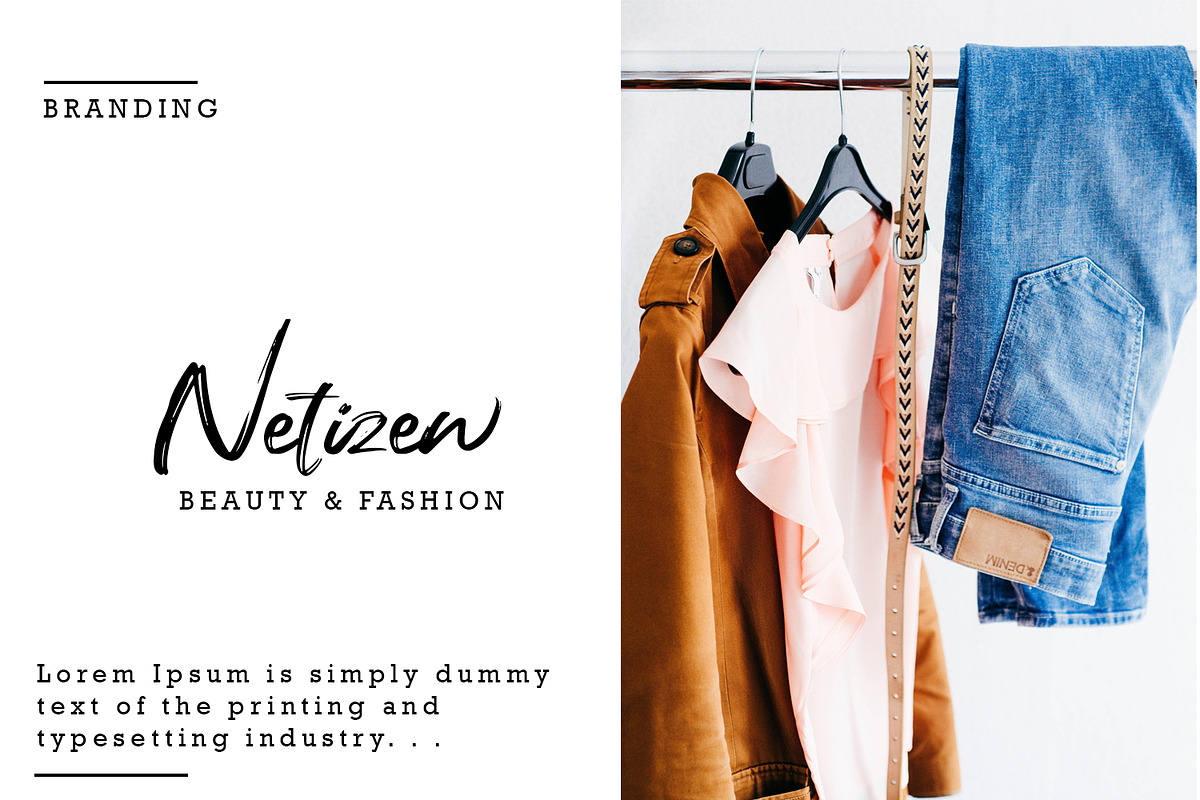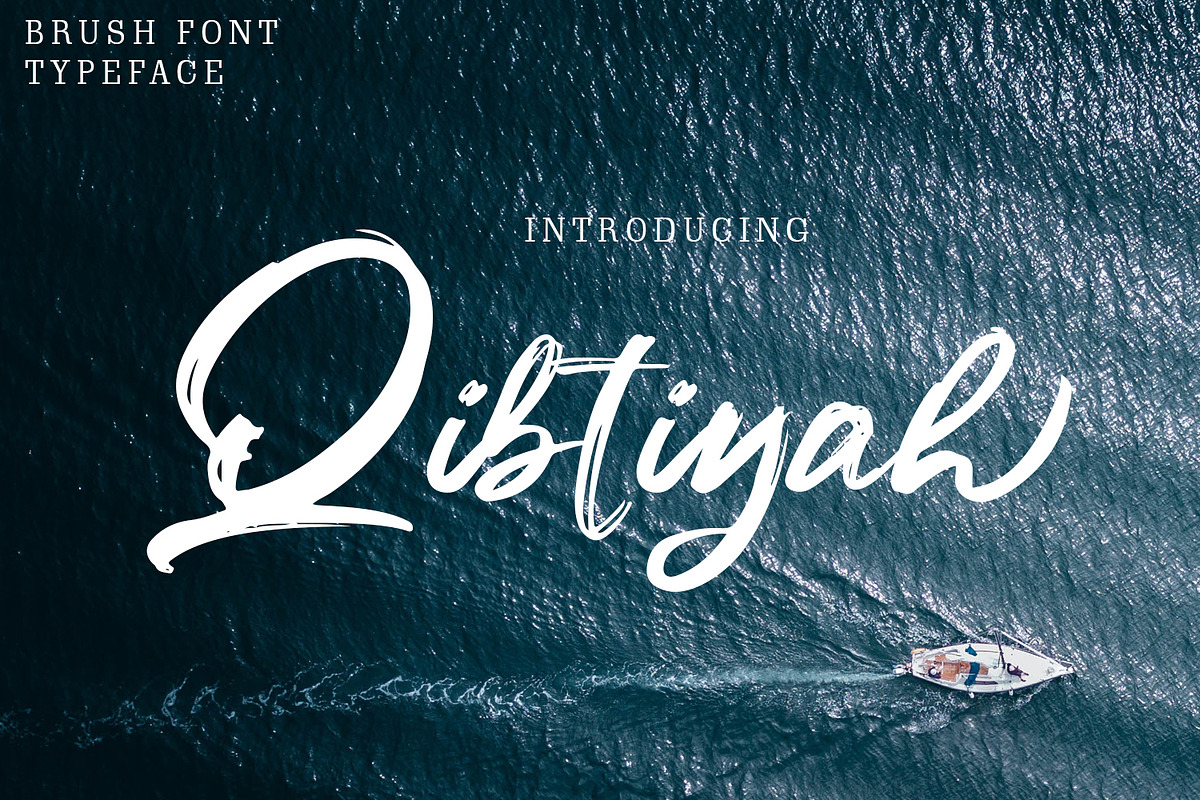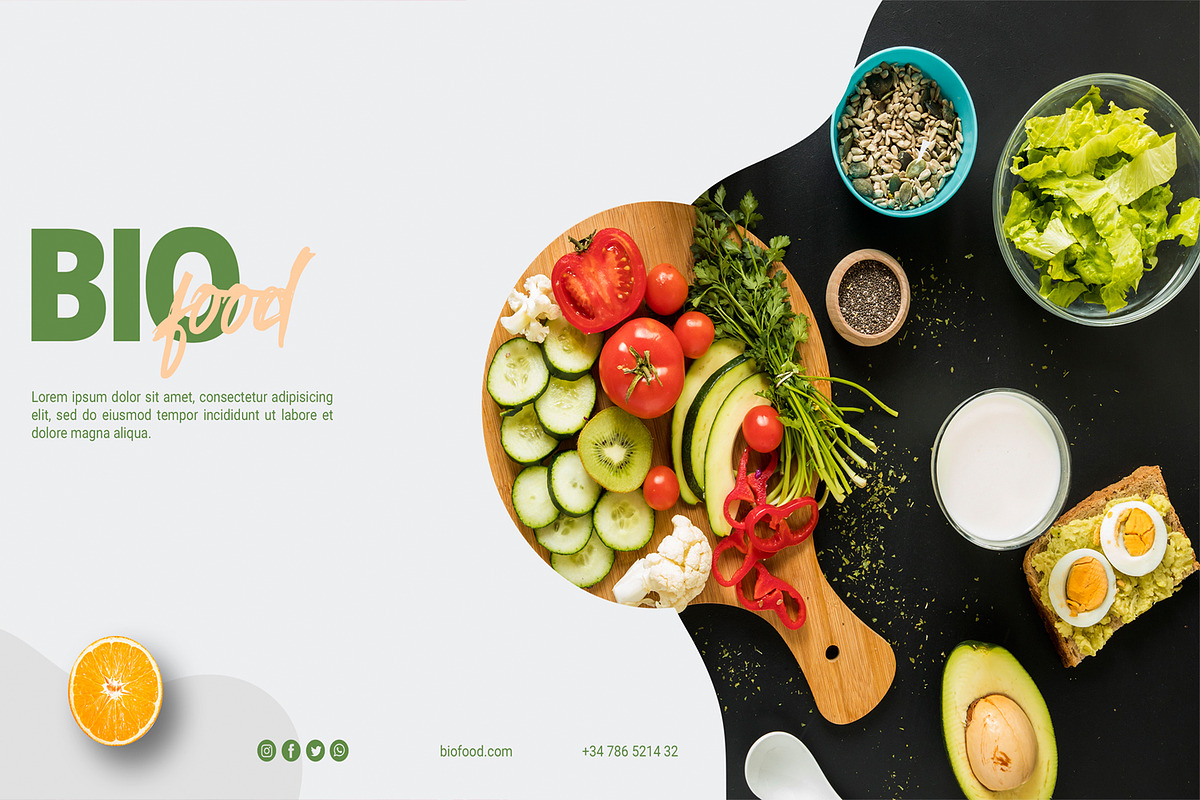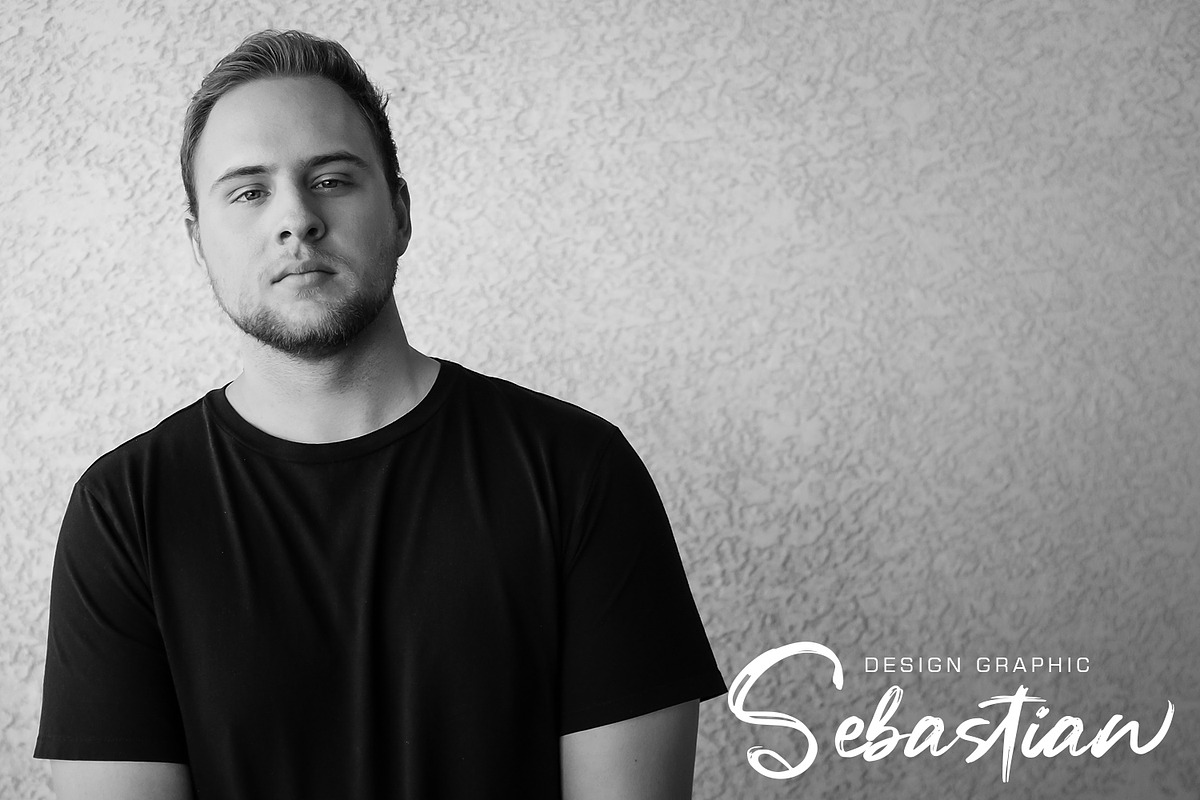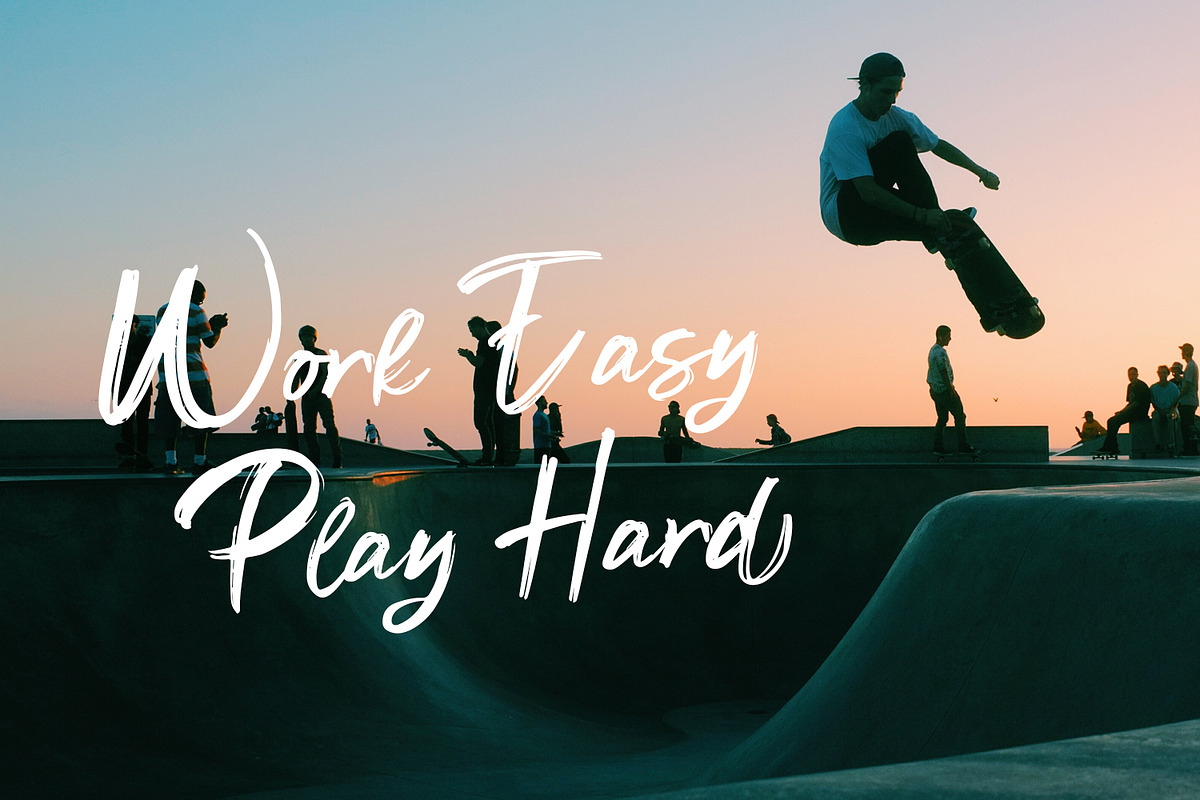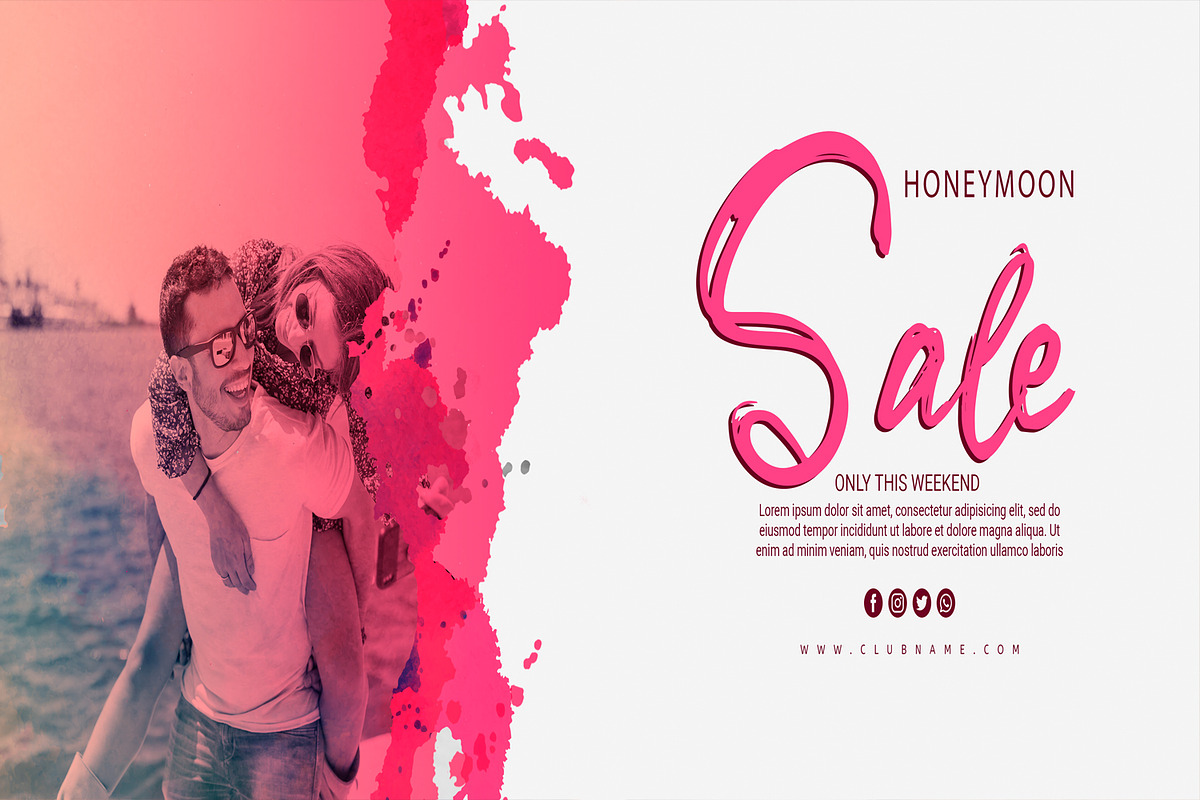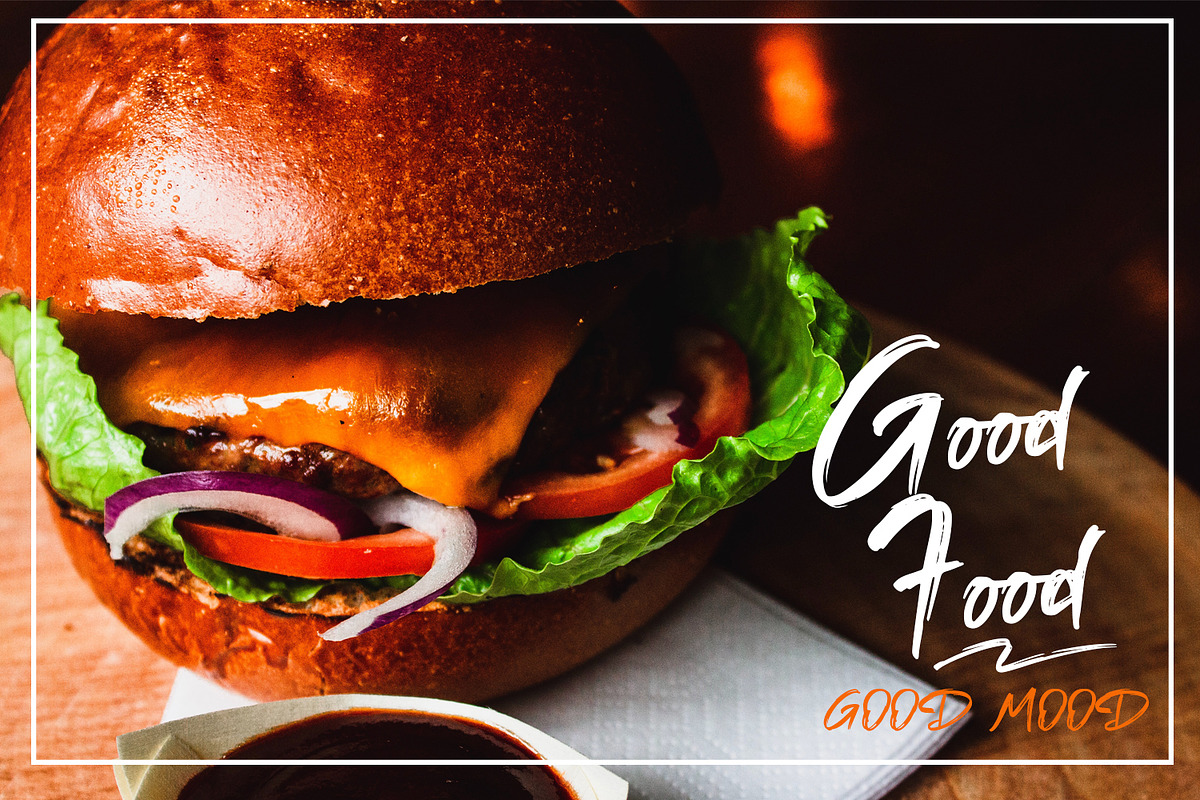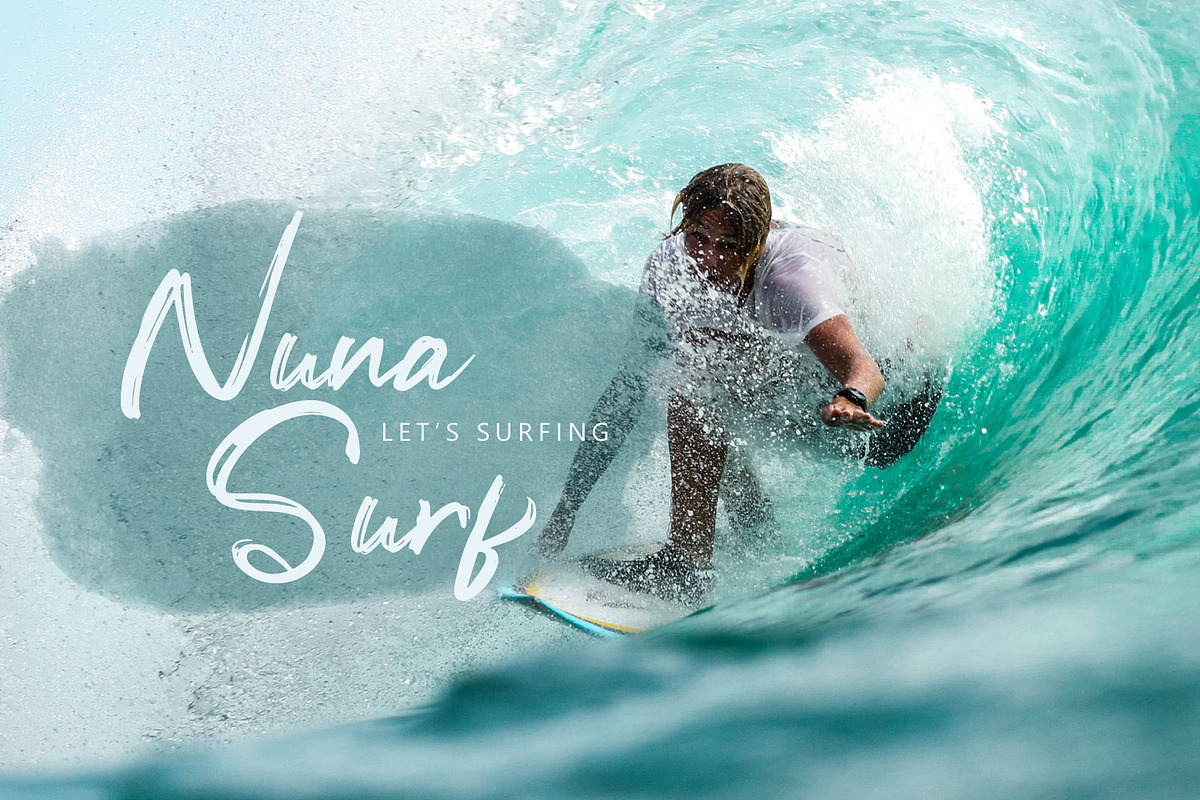
Qibtiyah Brush Font
Qibtiyah Brush Script Font is a font with distinctive handwritten characters perfect for branding projects, logos, wedding designs, media posts, advertisements, product packaging, product designs, labels, photography, watermarks, invitations, stationery, and any project who need handwritten dishes.Features : • Character Set A-Z • Numerals & Punctuations (OpenType Standard) • Accents (Multilingual characters) • Ligature • Swash
Qibtiyah Brush Font by Arendxstudio fits naturally into Branding, posters, packaging, typography.